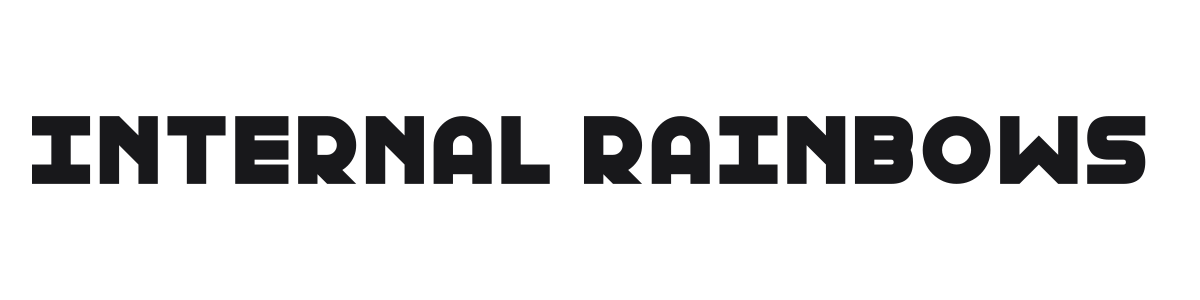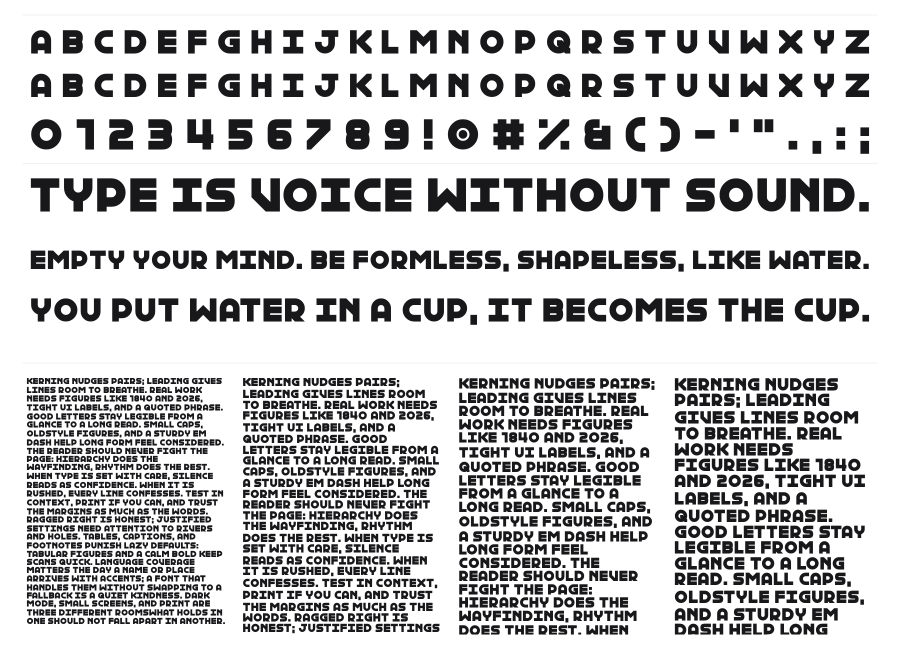
Internal Rainbows
Internal Rainbows is a heavy, wide display sans from Chequered Ink with rounded-corner geometry and near-monoweight strokes. The chunky forms carry a retro-futurist energy that recalls 1970s sci-fi lettering and arcade signage. It hits hard at large sizes and works well anywhere a bold, confident statement is needed.